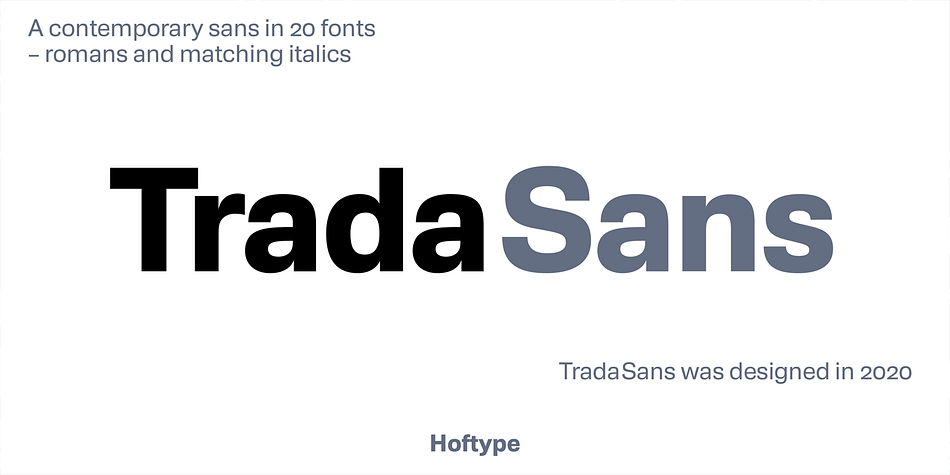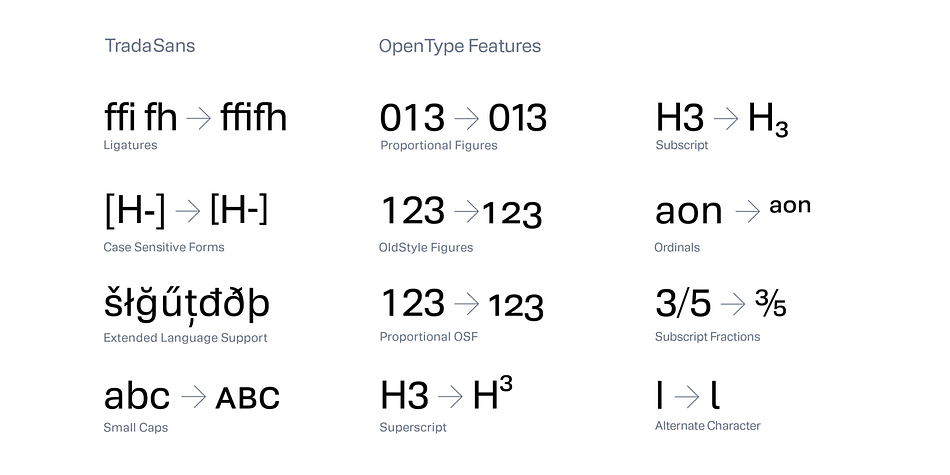
Trada Sans
Designed by Dieter Hofrichter, Trada Sans is a sans serif font family. This typeface has twenty styles and was published by Hoftype.
TradaSans is a new addition in the range of Univers and Helvetica. It represents a fresh face in this ongoing strong category of sans serif typefaces. TradaSans slightly squarish tendency, and its technical and neutral look create an objective and factual appearance.
TradaSans is an ideal typeface for universal use. It offers high reading qualities with longer text applications and its sophisticated design details make it a distinctive headline typeface.
TradaSans consists of 20 well tuned weights and is well equipped for advanced typography. It comes in OpenType format with extended support for up to 80 languages. All weights contain small caps, ligatures, superior characters, proportional lining figures, tabular lining figures, proportional old style figures, lining old style figures, matching currency symbols, fraction- and scientific numerals, matching arrows and alternate characters.